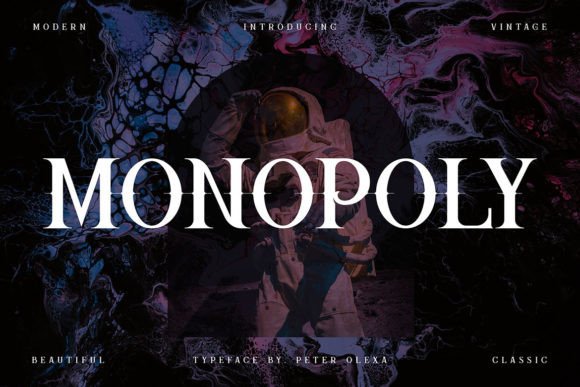
Prepare to be captivated by Monopoly Font, the ultimate serif typeface that exudes retro charm and sophistication. This remarkable creation by JumboDesign is an absolute game-changer in the world of font design, boasting unparalleled visual appeal and versatility.
With its bold and striking lines, Monopoly Font commands attention, promising to make your designs stand out from the crowd. Its distinctive character brings a timeless elegance to logos, headlines, and any creative endeavor you can imagine.
Embrace the boldness of Monopoly Font, the perfect choice for creating captivating T-shirt designs. Its unwavering presence ensures your message will resonate with clarity and impact. Whether you're a seasoned designer or just starting, Monopoly Font empowers you to unleash your creativity like never before.
Beyond its stunning aesthetics, Monopoly Font is also incredibly adaptable. Its inherent versatility allows it to effortlessly blend into various design styles, seamlessly complementing your unique vision. From classic and elegant to modern and edgy, Monopoly Font possesses the versatility to bring your creative dreams to life.
Experience the transformative power of Monopoly Font today and elevate your designs to new heights. Step into a world of captivating visuals and endless possibilities, where your creativity knows no bounds. Embrace the bold, the beautiful, and the truly extraordinary with Monopoly Font.